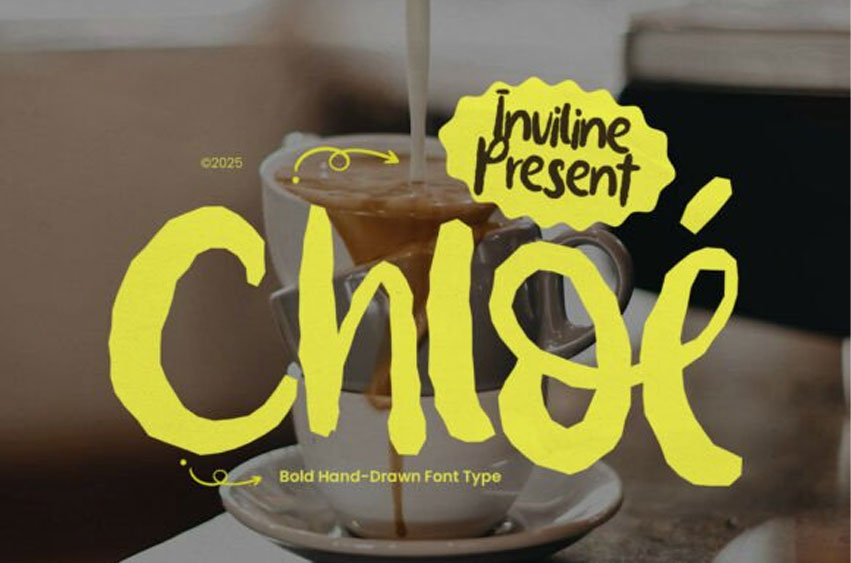
Chloe Handdrawn Font
Chloe Handdrawn Font is a striking, bold hand-drawn font type that captures attention with its vibrant, energetic aesthetic. This display typeface features a distinctly textured, almost brush-like appearance, giving each letter a handcrafted and authentic feel. The fluidity of the strokes, combined with the bold weight, makes it highly expressive and impactful.
Chloe is ideal for designs that aim to convey a sense of fun, creativity, or casual charm. It would excel in branding for cafes, artisanal products, or children’s goods, as well as in headlines, posters, and social media graphics where a strong, personable statement is desired. Its unique style is perfect for adding a touch of bold, artistic flair and a lively personality to any project.